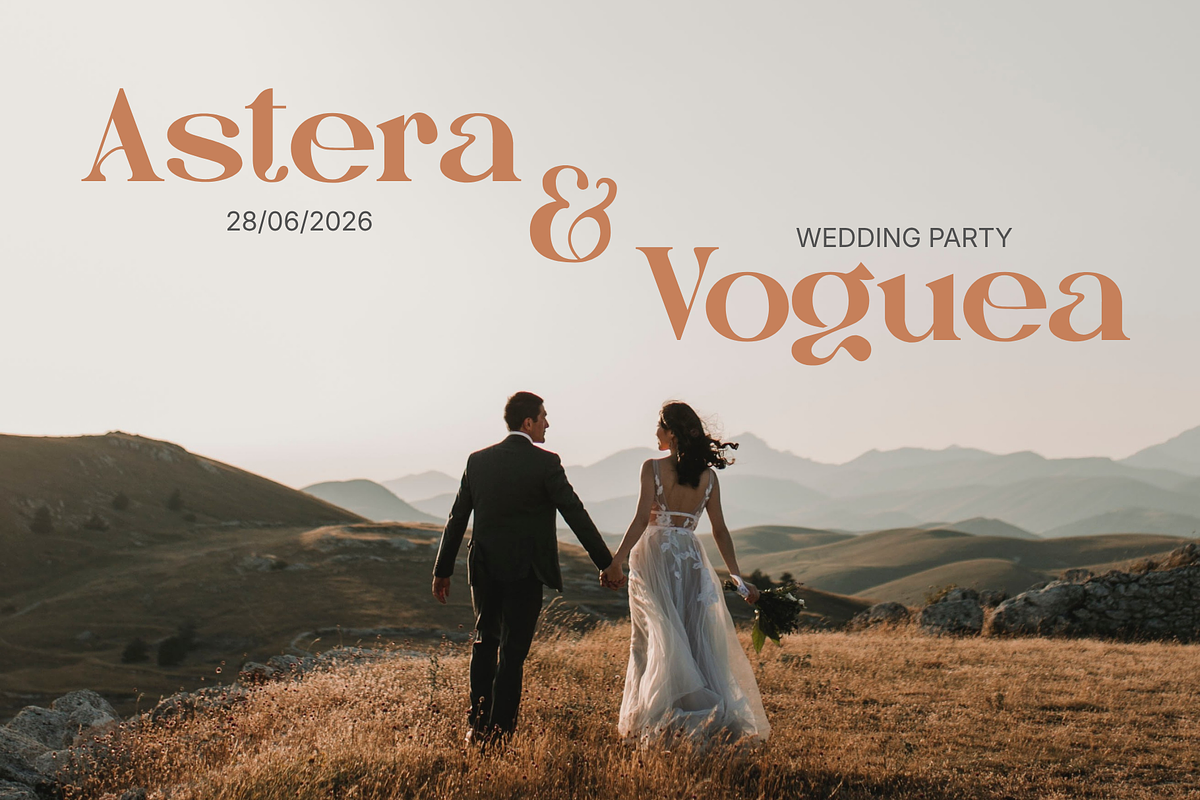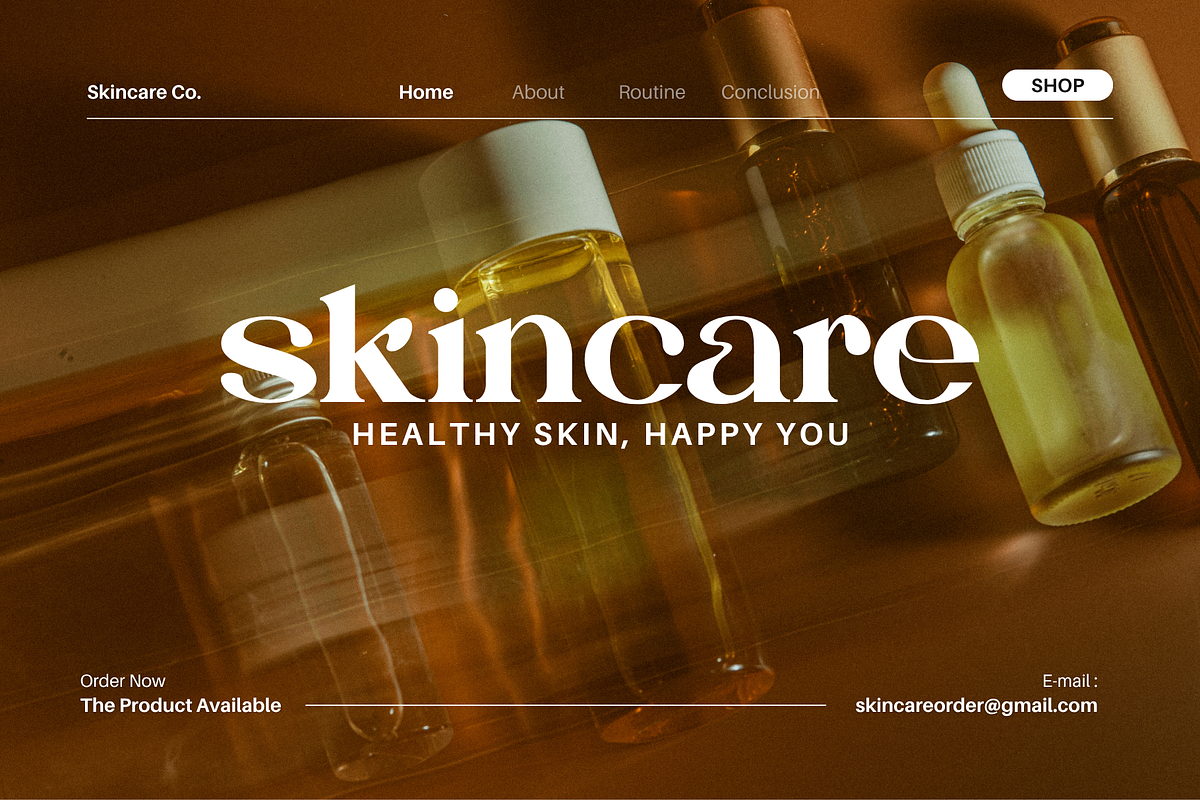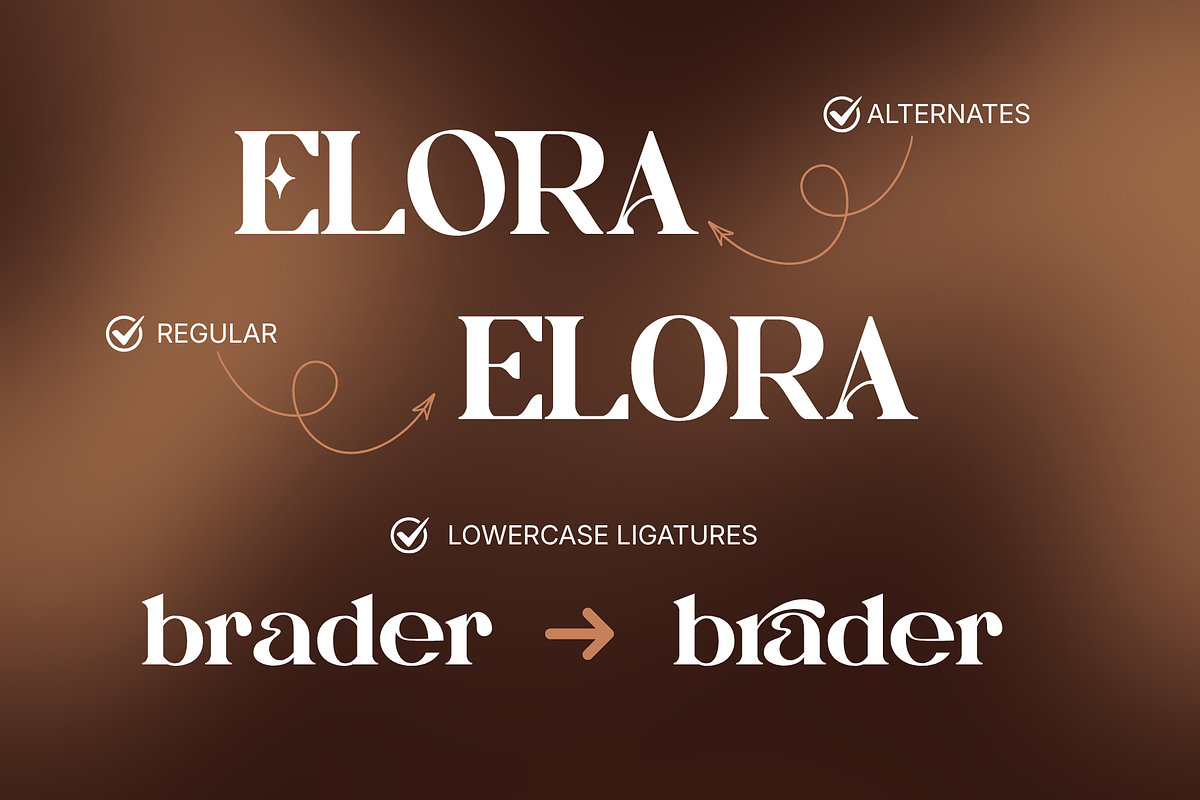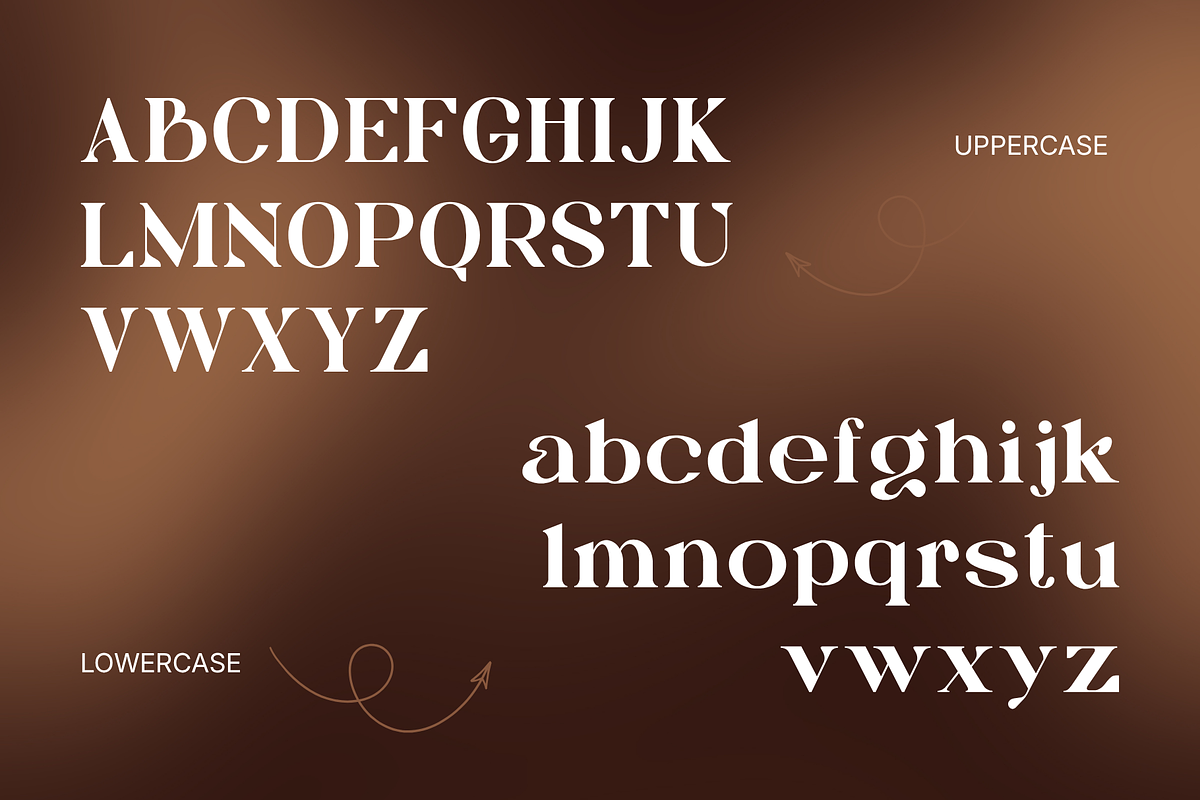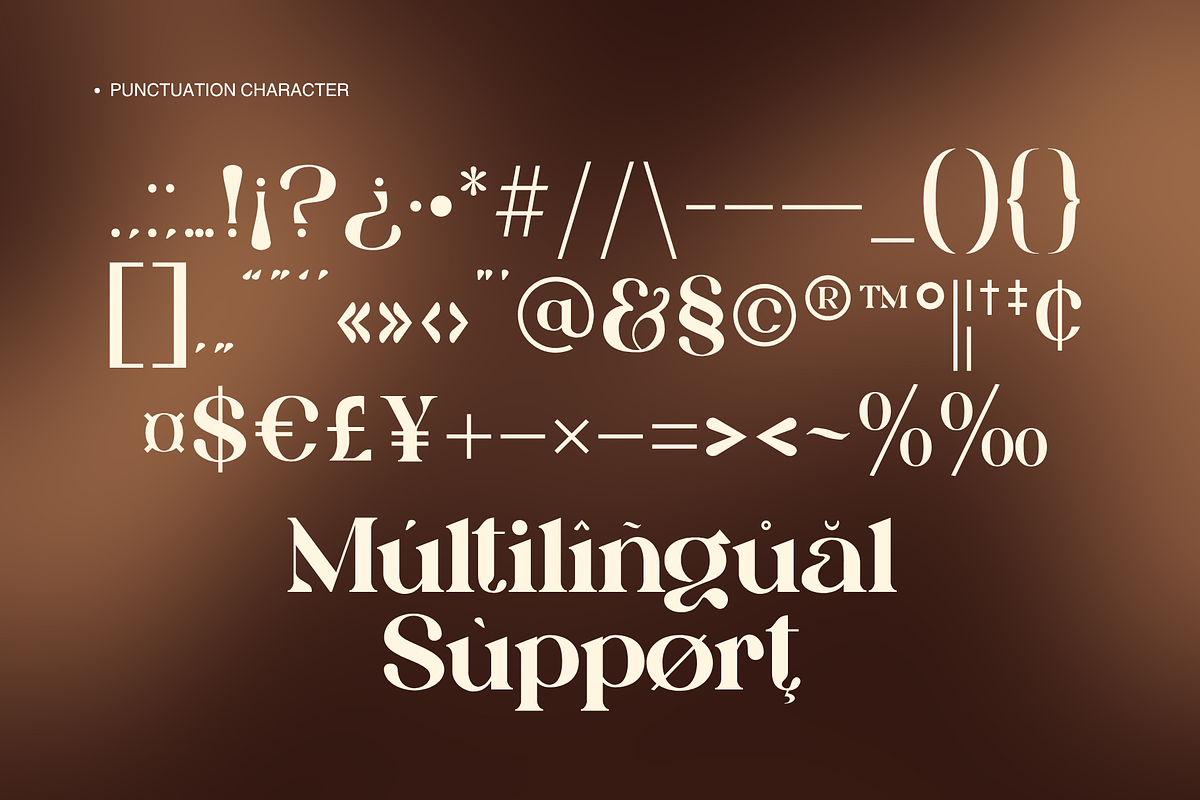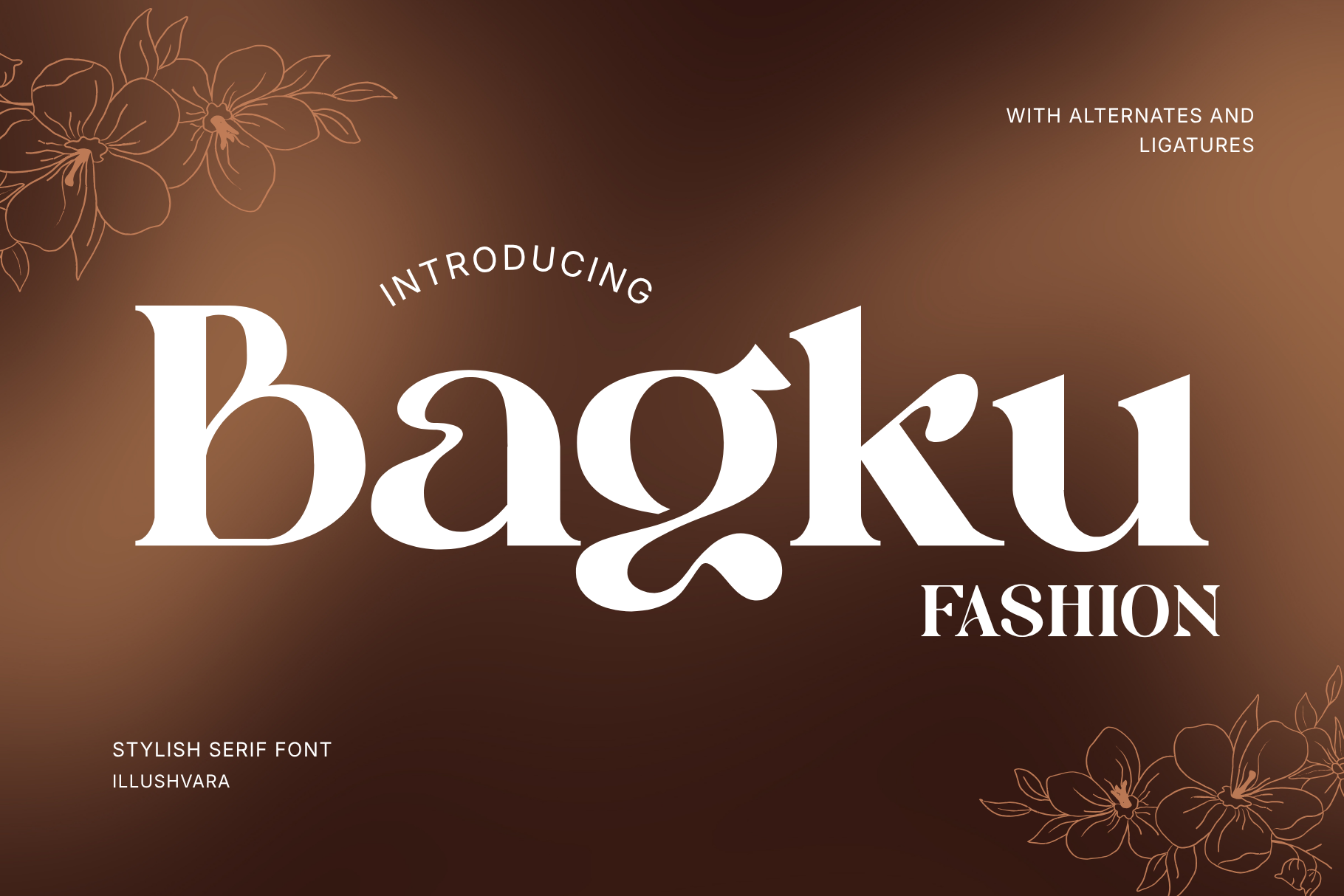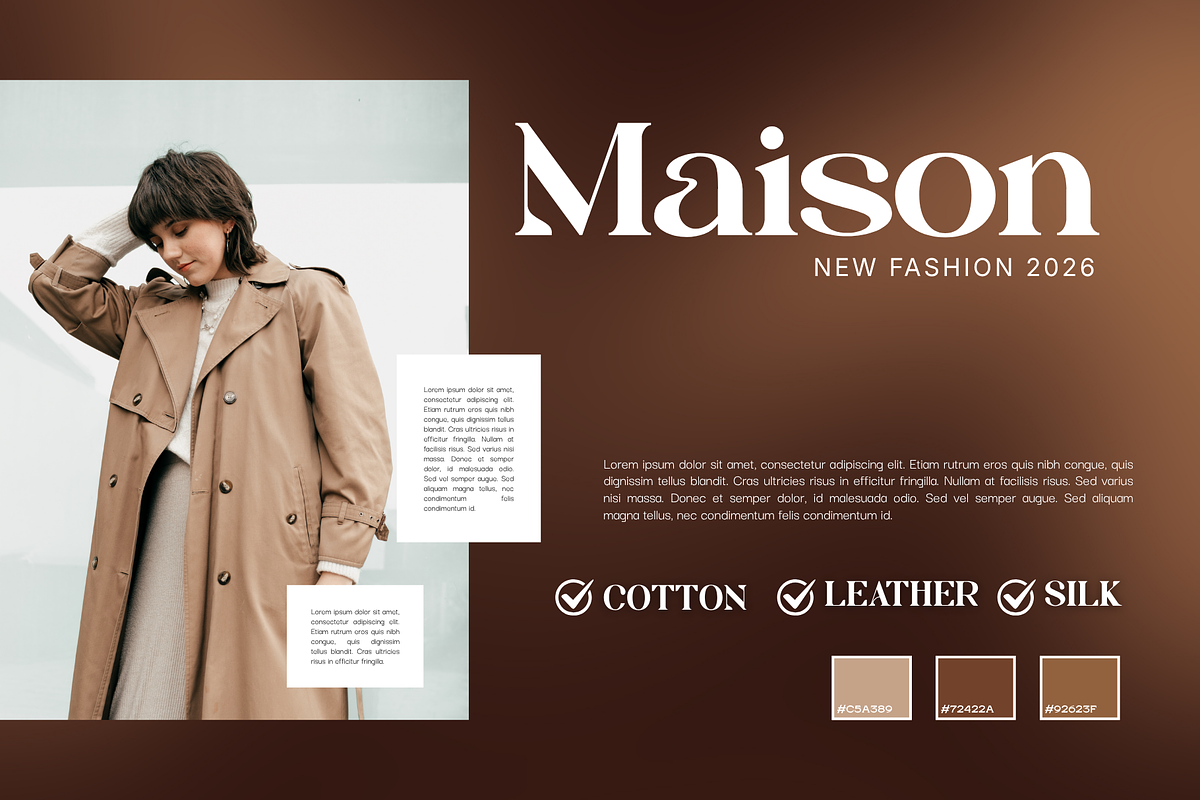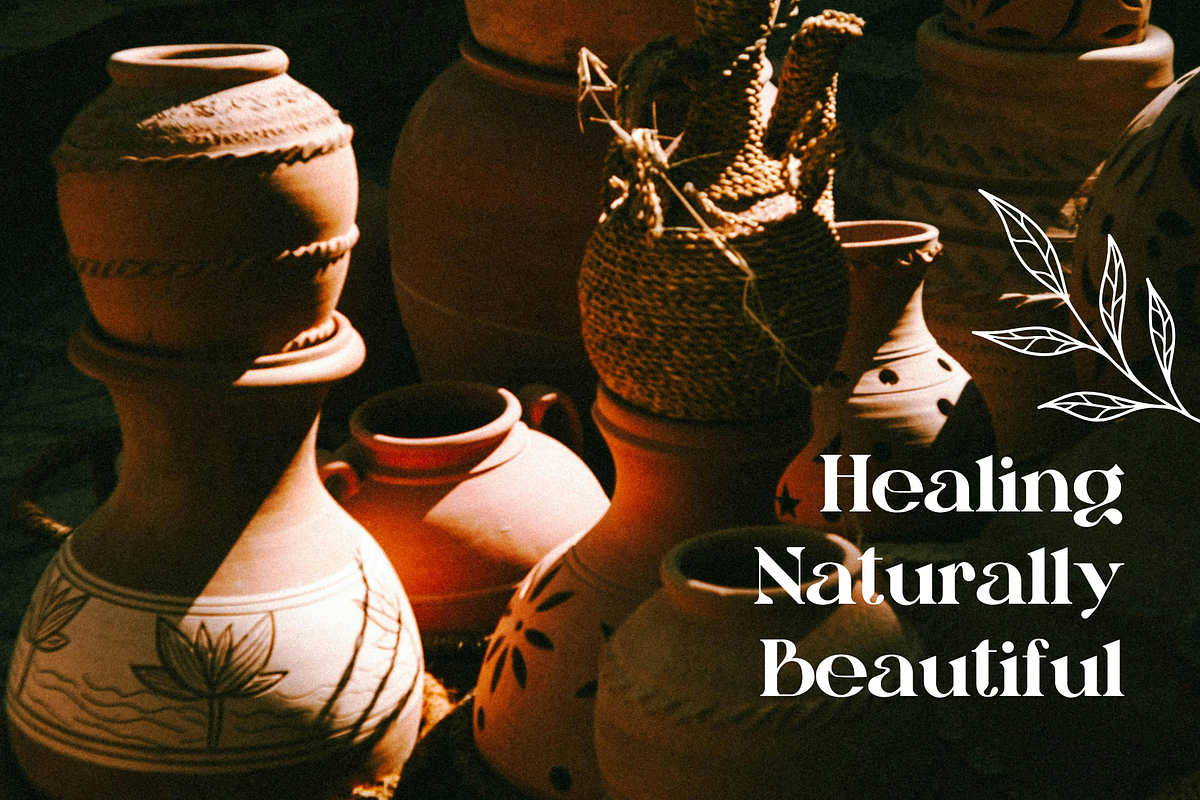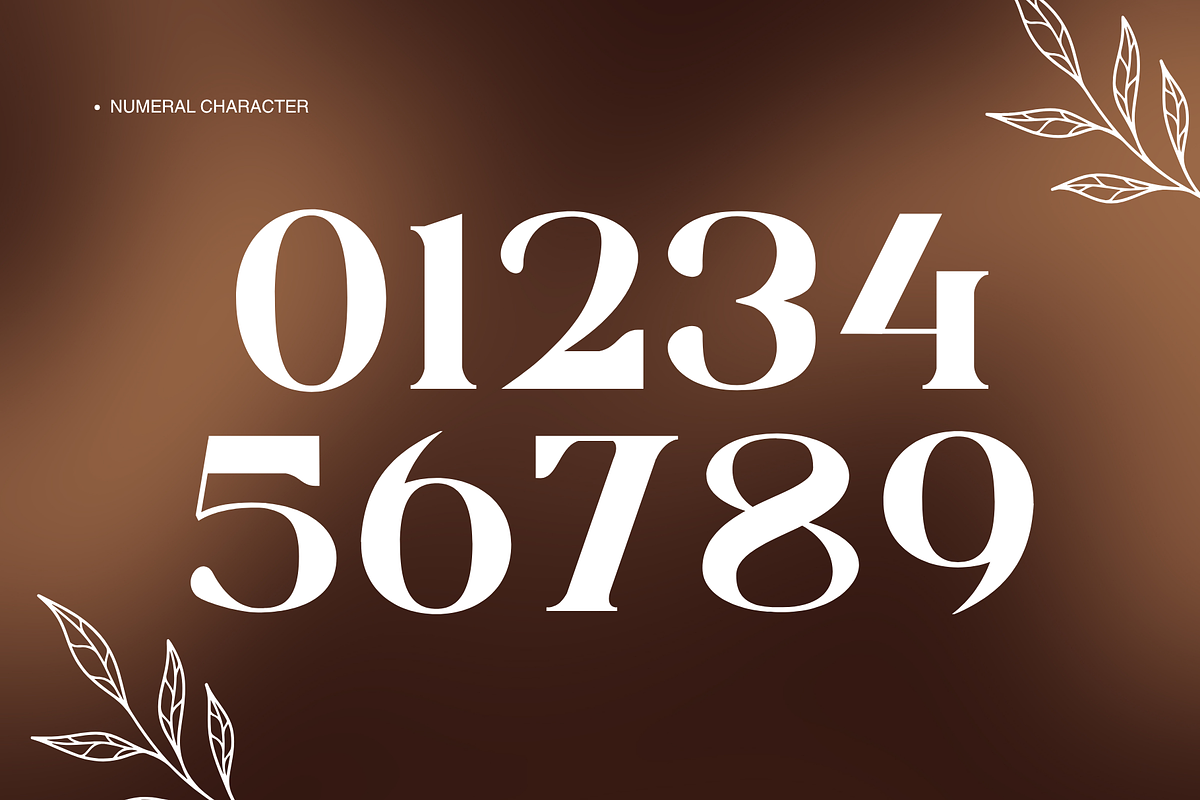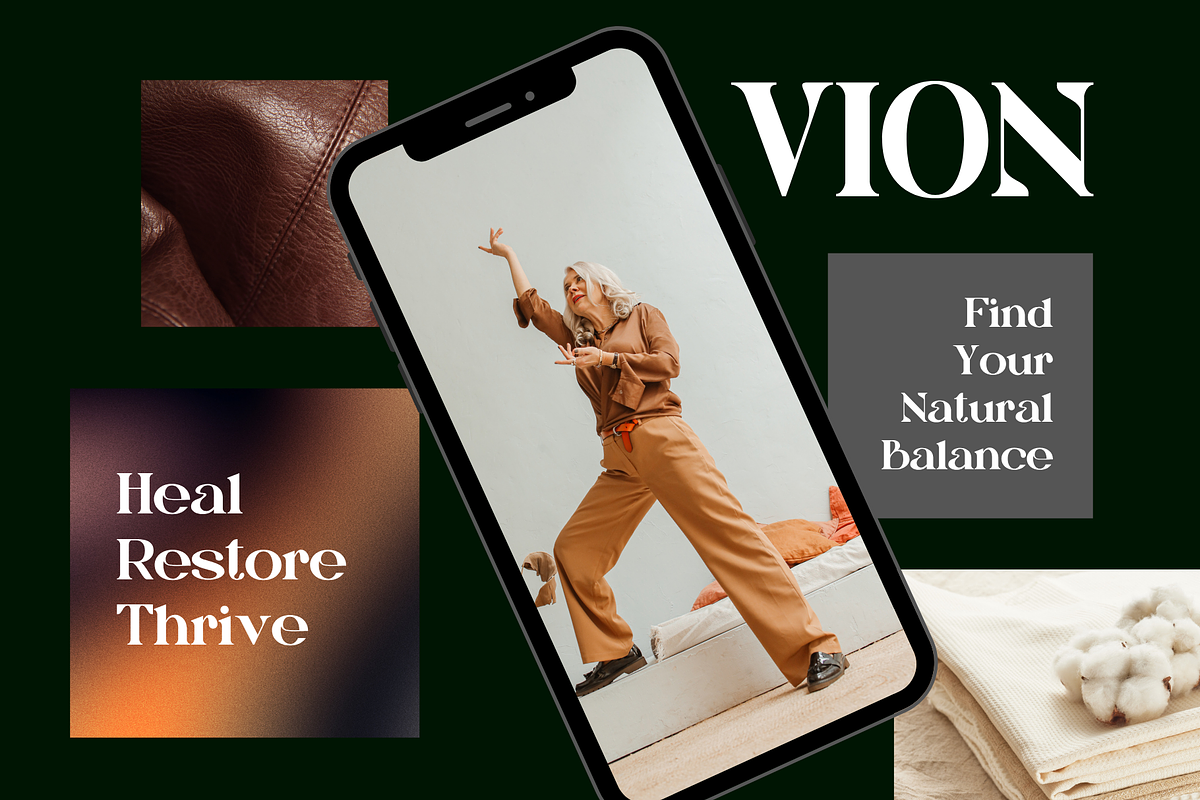
Bagku Fashion - Luxury Modern Font
Say hello to Bagku Fashion
Bagku Fashion is a luxury fashion logo font crafted to bring elegance, confidence, and timeless sophistication to modern brands. Featuring refined letterforms with a stylish high-end aesthetic, it is perfect for fashion labels, skincare packaging, cosmetic brands, mobile applications, premium logos, ceramic products, editorial designs, and luxury branding projects. Bagku Fashion delivers a polished and distinctive visual identity that helps brands stand out with beauty, class, and contemporary appeal across both print and digital media.
FEATURES : Uppercase, Lowercase, Number, Punctuation, Multilingual, PUA Encode, Alternates, Ligatures, Opentype Character.